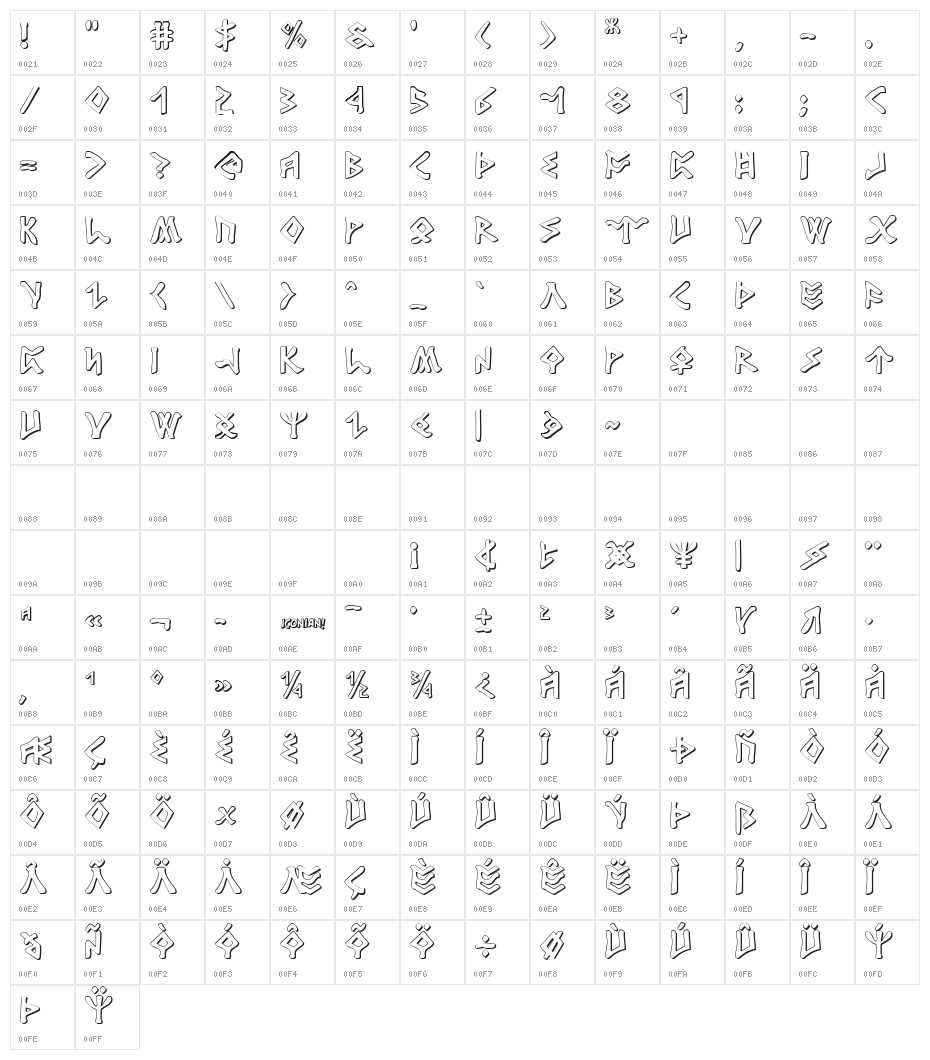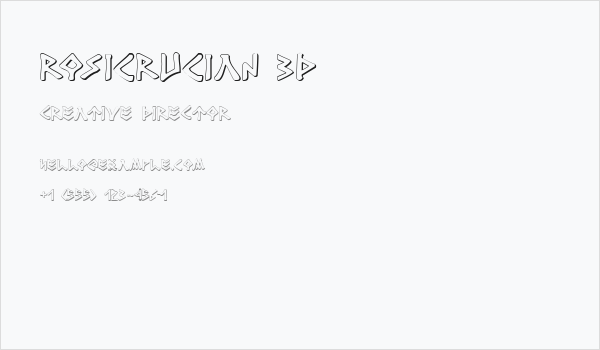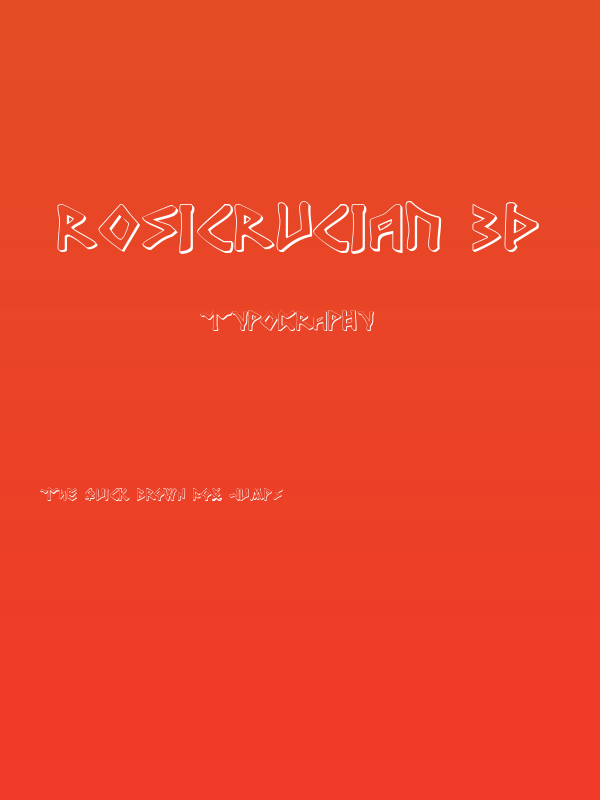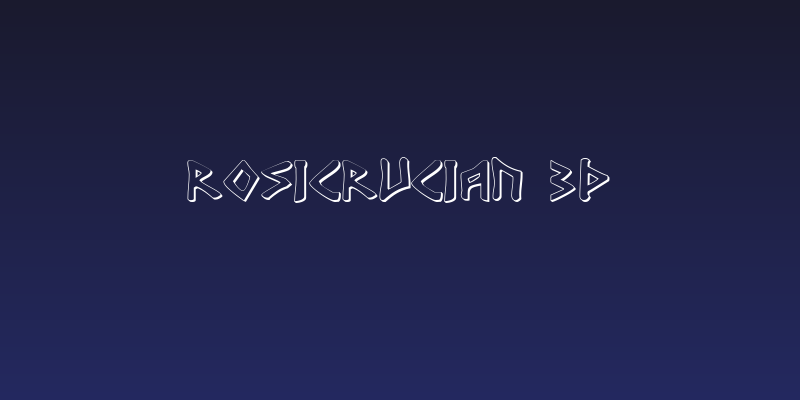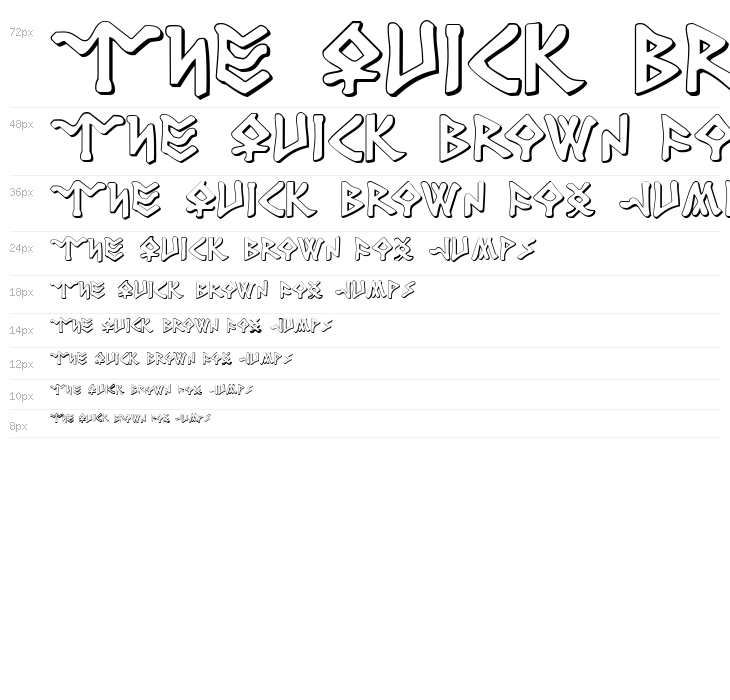
Rosicrucian 3D Font
Rosicrucian 3D Description
This font features a bold, three-dimensional style with a unique, angular design. The characters are outlined, giving them a striking, shadowed appearance that adds depth and dimension. The uppercase and lowercase letters maintain a consistent geometric form, with sharp edges and a futuristic aesthetic. Numbers and special characters follow the same design principles, ensuring a cohesive look across all glyphs. The font's distinct style makes it ideal for projects that require a modern and eye-catching typeface.
| Proposed Projects | Ideal for video game titles, sci-fi movie posters, tech-related branding, and modern art projects. |